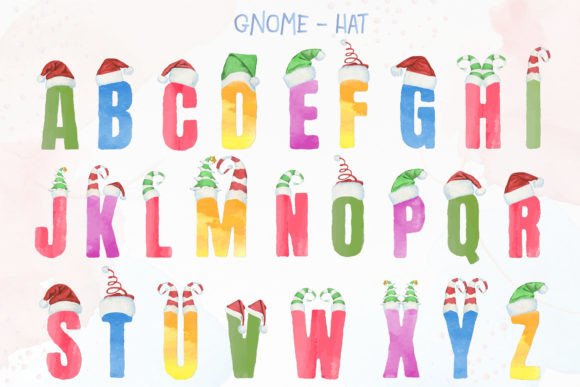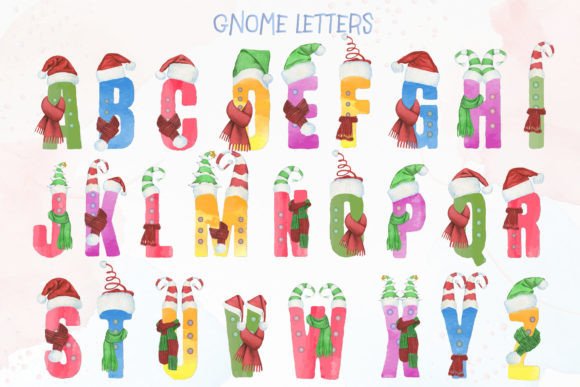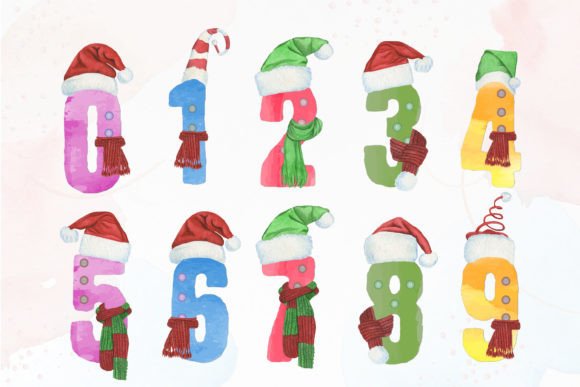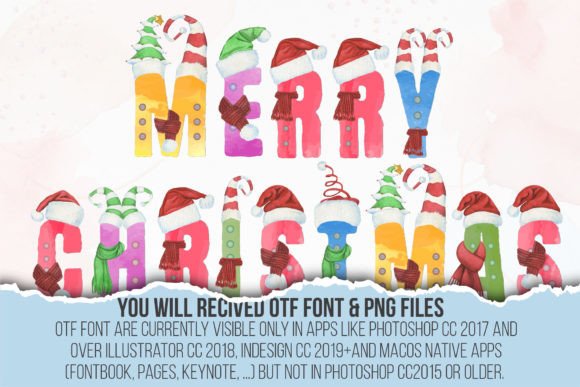
Gnome Font: Add a Jolly Touch to Your Designs with this Festive Christmas Font
Are you looking for a font that embodies the spirit of Christmas and adds a playful touch to your designs? Look no further than the Gnome Font! This friendly and colorful font is perfect for designers and crafters who want to create festive and fun projects. In this article, we’ll take a closer look at the Gnome Font, its features, and how you can use it to elevate your designs.
What is Gnome Font?
Gnome Font is a unique and festive font that is designed to bring a smile to your face. It features colorful and playful lettering that is reminiscent of Christmas decorations and festivities. The font is carefully crafted to embody the spirit of the holiday season, making it perfect for Christmas-themed projects, holiday cards, and festive designs.
Key Features of Gnome Font
So, what makes Gnome Font so special? Here are some of its key features:
- Playful and Colorful: Gnome Font features bright and vibrant colors that add a playful touch to your designs.
- Christmas Theme: The font is designed with a Christmas theme, making it perfect for holiday projects and festive designs.
- High-Quality: Gnome Font is a high-quality font that is designed to be clear and legible, even at small sizes.
How to Use Gnome Font in Your Designs
Now that we’ve covered the features of Gnome Font, let’s talk about how you can use it in your designs. Here are some ideas to get you started:
- Holiday Cards: Use Gnome Font to create festive holiday cards that are sure to delight your friends and family.
- Christmas Decorations: Add a personal touch to your Christmas decorations with Gnome Font. Use it to create custom signs, banners, and other decorations.
- Social Media Graphics: Use Gnome Font to create festive social media graphics that will help your brand stand out during the holiday season.
- Crafting Projects: Gnome Font is perfect for crafters who want to add a personal touch to their projects. Use it to create custom labels, tags, and other embellishments.
Tips for Using Gnome Font
Here are some tips for using Gnome Font in your designs:
- Experiment with Colors: Gnome Font is all about bright and vibrant colors. Experiment with different color combinations to find the perfect look for your design.
- Mix and Match: Don’t be afraid to mix and match Gnome Font with other fonts to create a unique look.
- Keep it Simple: While Gnome Font is a playful font, it’s still important to keep your design simple and easy to read.
In conclusion, Gnome Font is a fun and festive font that is perfect for designers and crafters who want to add a jolly touch to their designs. With its playful and colorful lettering, Gnome Font is sure to bring a smile to your face. Whether you’re creating holiday cards, Christmas decorations, or social media graphics, Gnome Font is a great choice. So why not give it a try and see how it can elevate your designs?